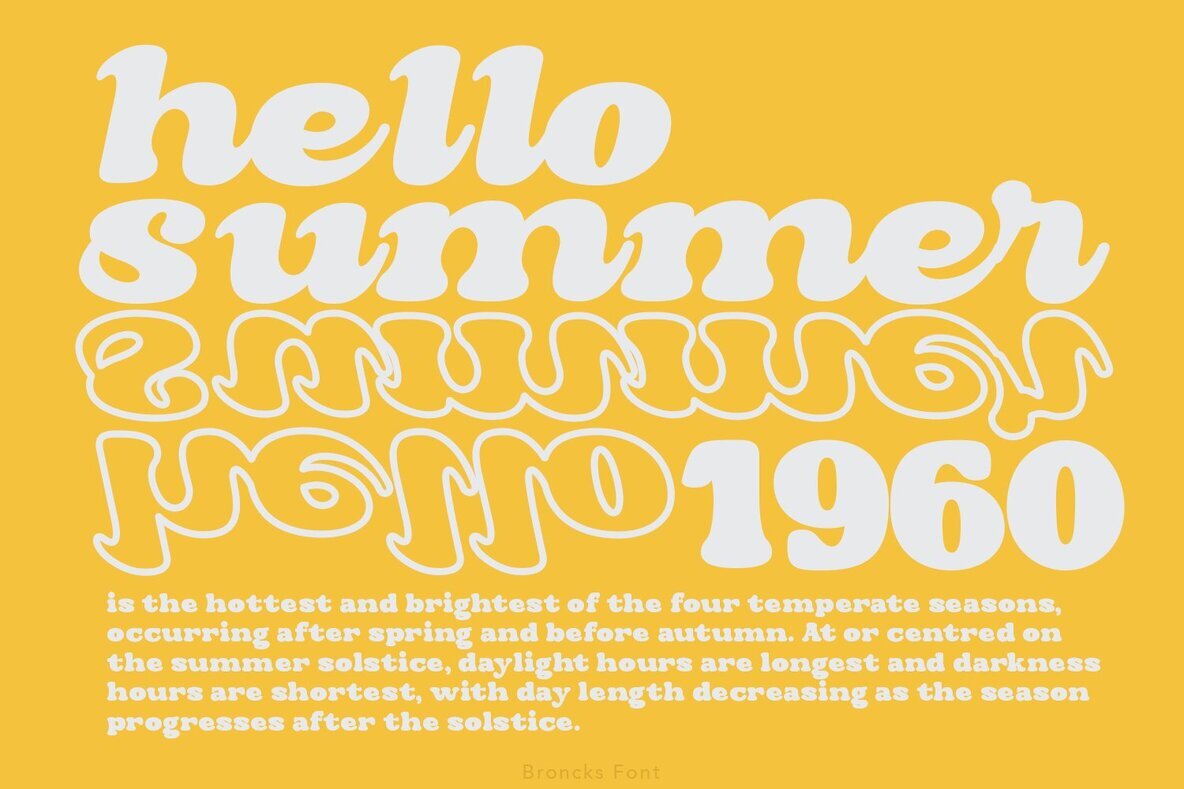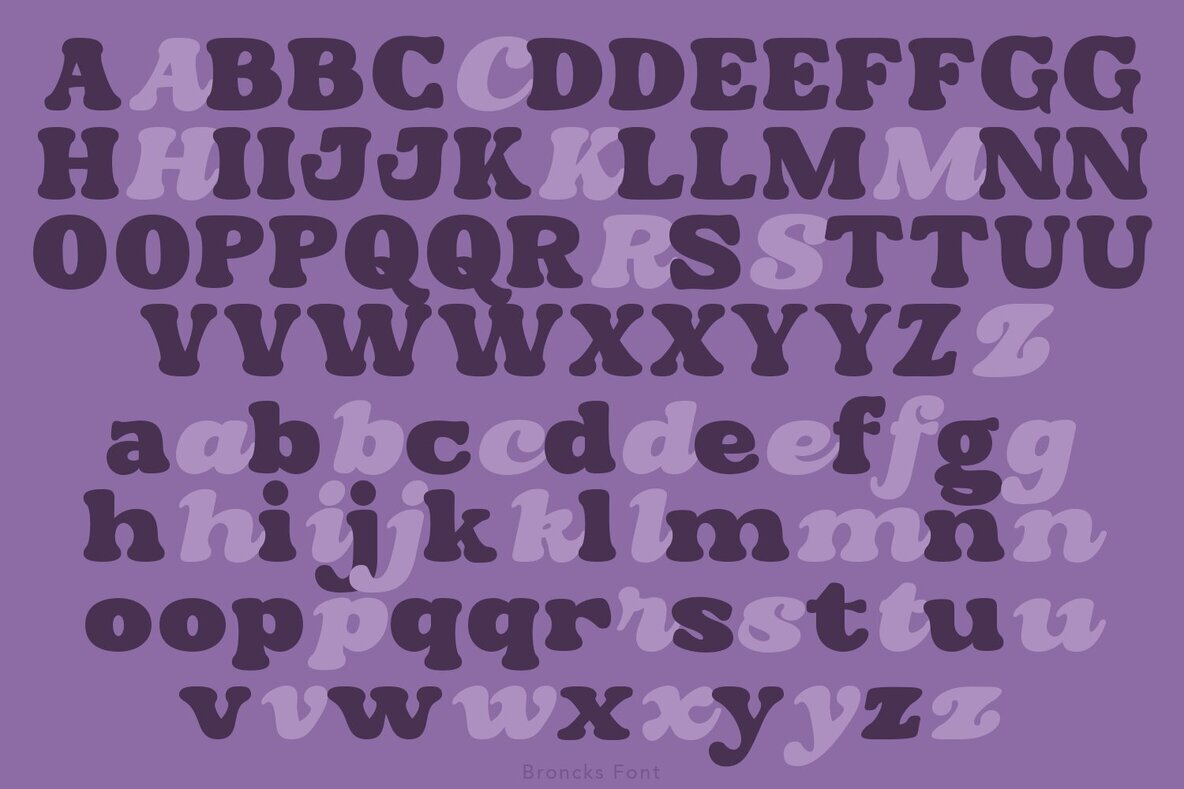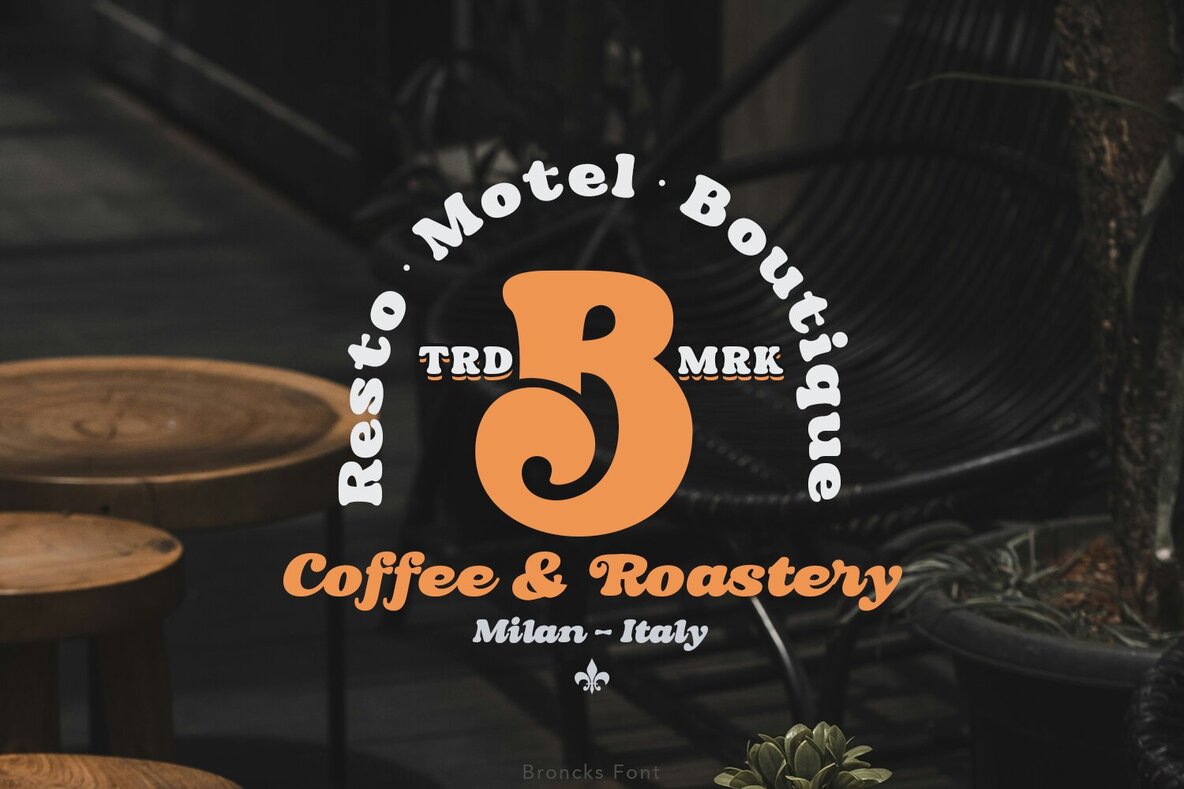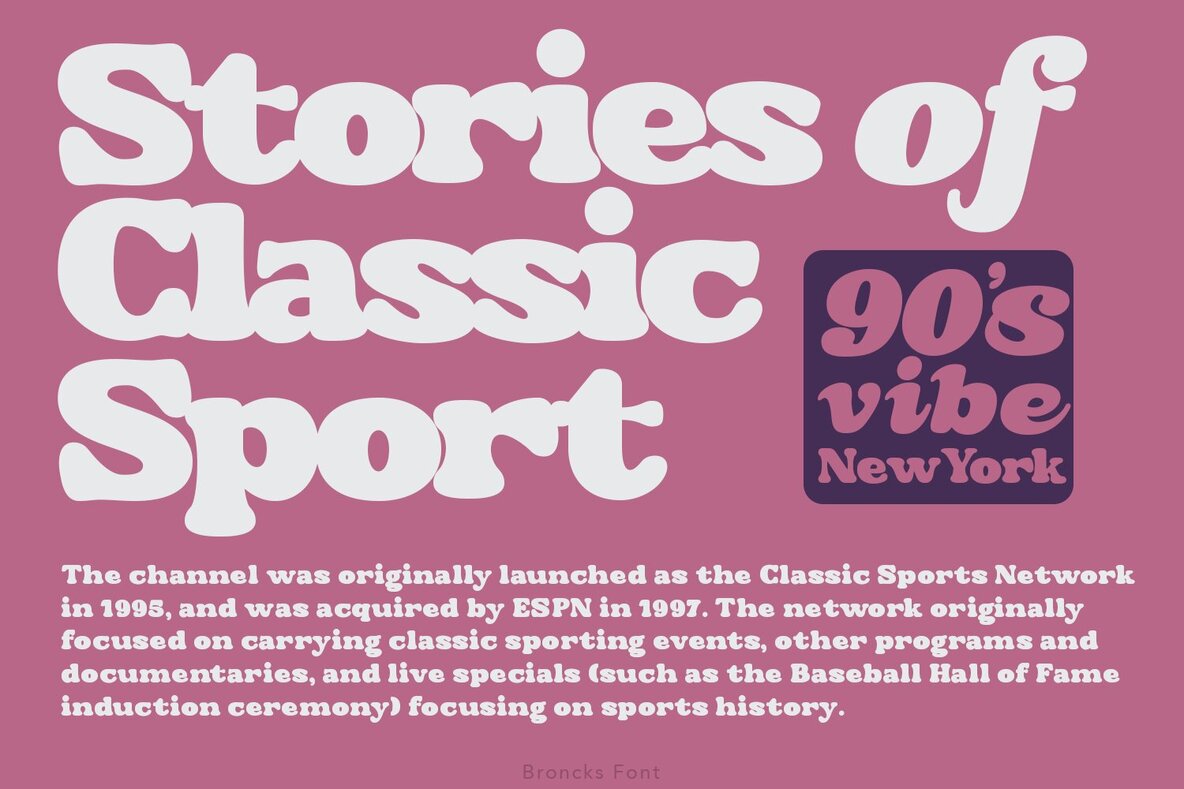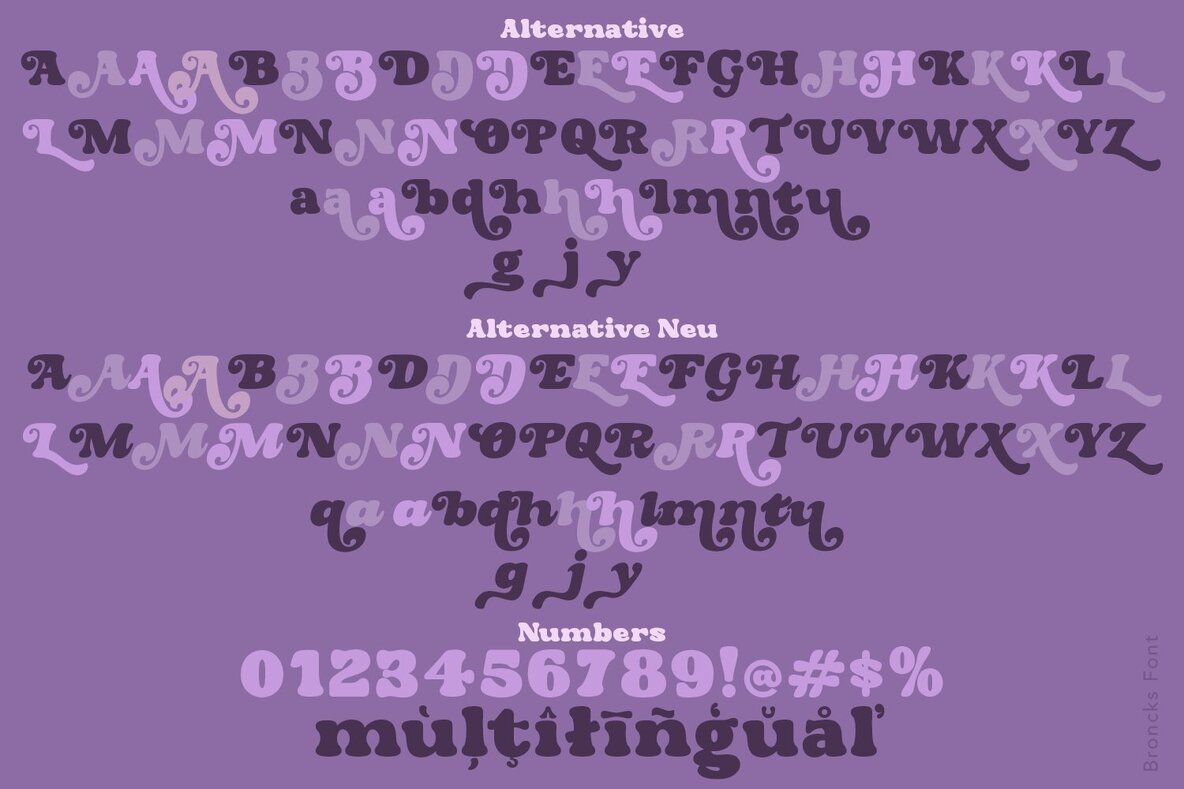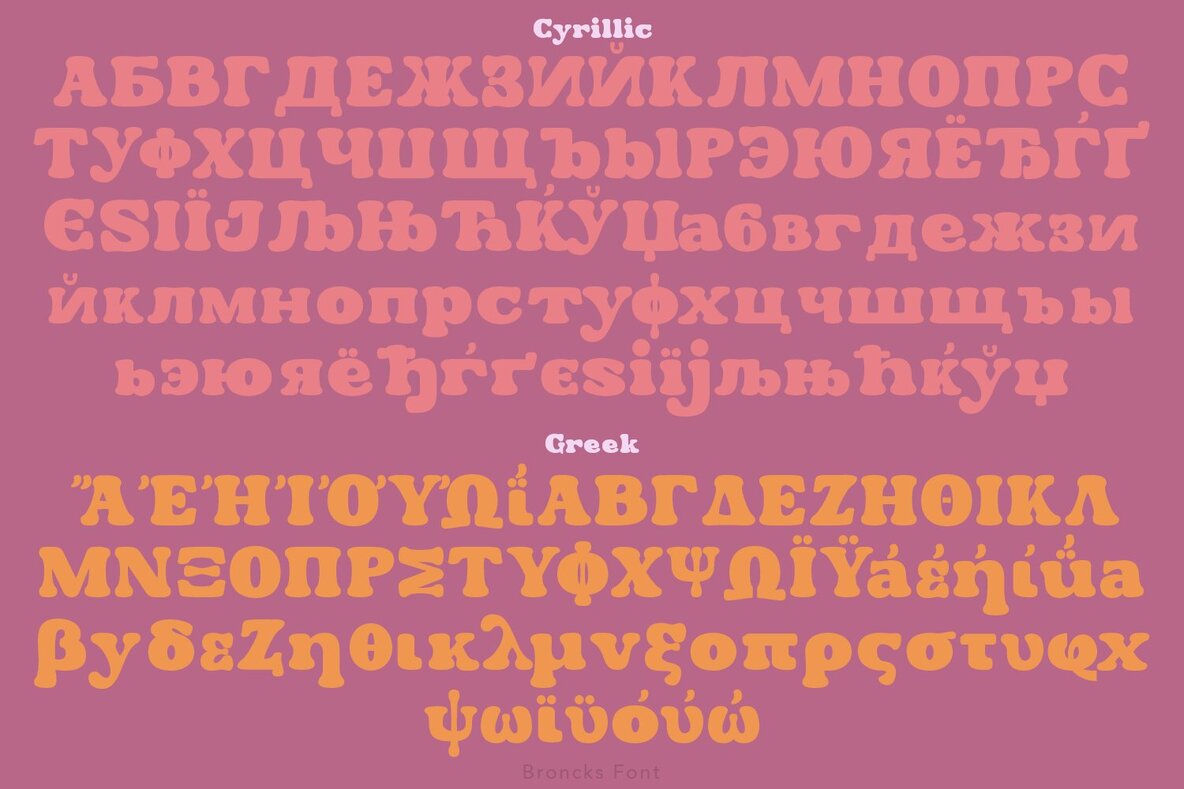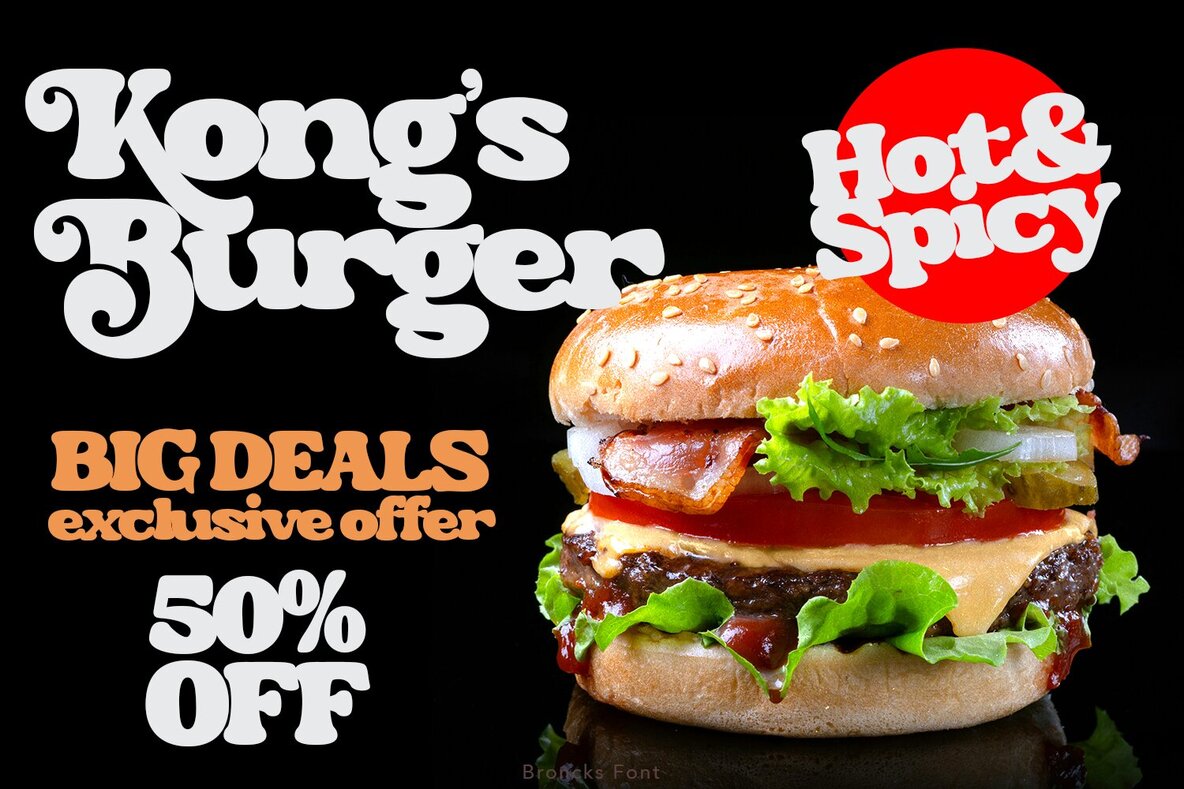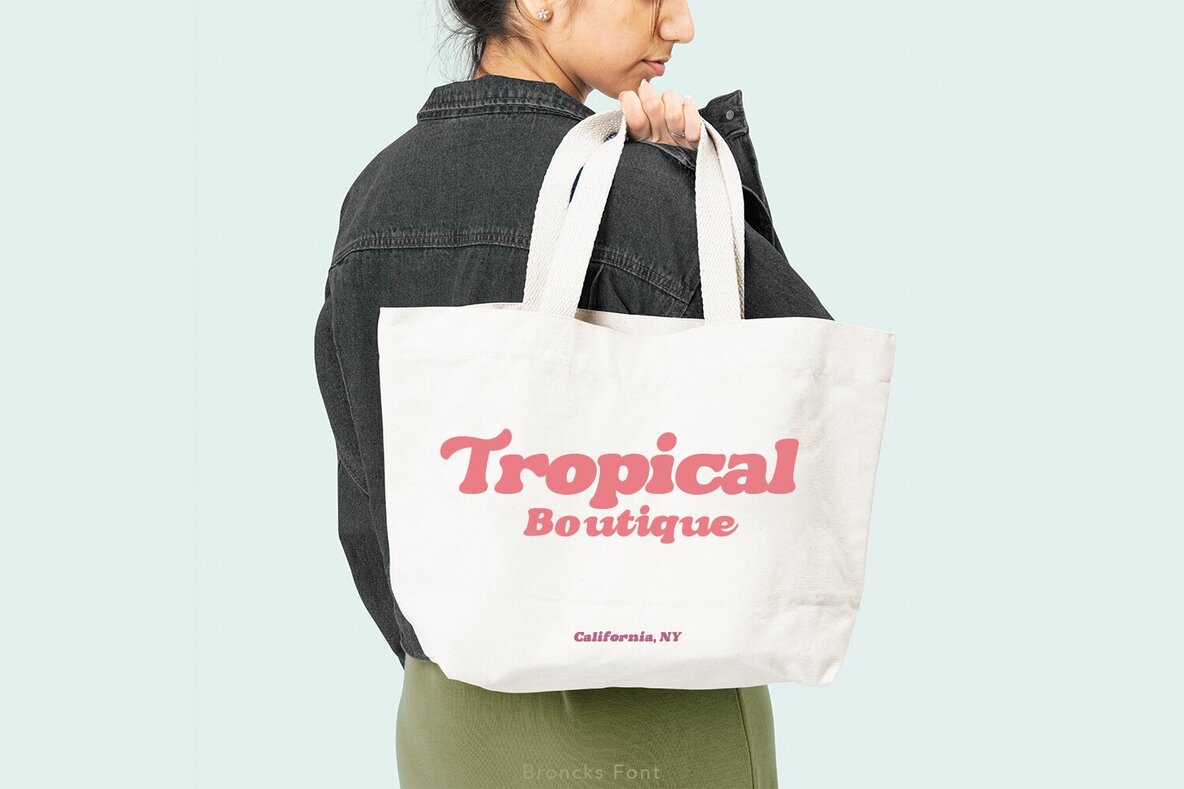
Broncks Font
Broncks is a nostalgic font inspired by the 80's, featuring a retro serif style designed for readability. This font is perfect for creating a harmonious reading experience with its rhythmical and refined design.Broncks: Retro Serif with Extensive Language Support
Extensive Language Coverage